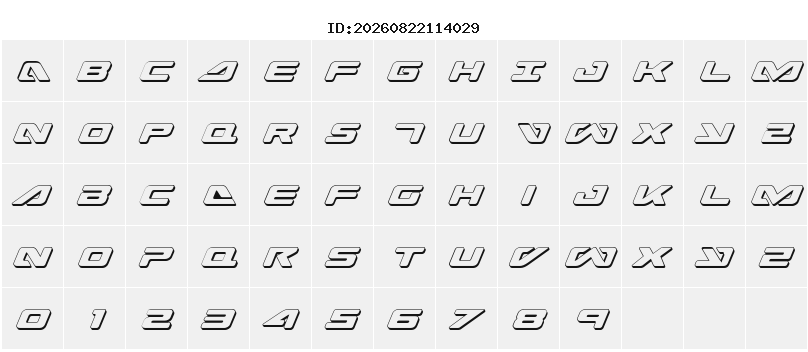
Sea-Dog 3D Italic Preview
• Font Name: Sea-Dog 3D Italic
• Font ID: Sea-Dog 3D: 2015
• Full Font Name: Sea-Dog 3D Italic
• Version: Version 3.0; 2015
• PostScript Name: Sea-Dog3DItalic
About Sea-Dog 3D Italic.ttf
Sea-Dog 3D Italic.ttf is a modern, elegant sans-serif font designed for ultimate readability and visual harmony. Perfect for branding, headlines, web design, and print materials.